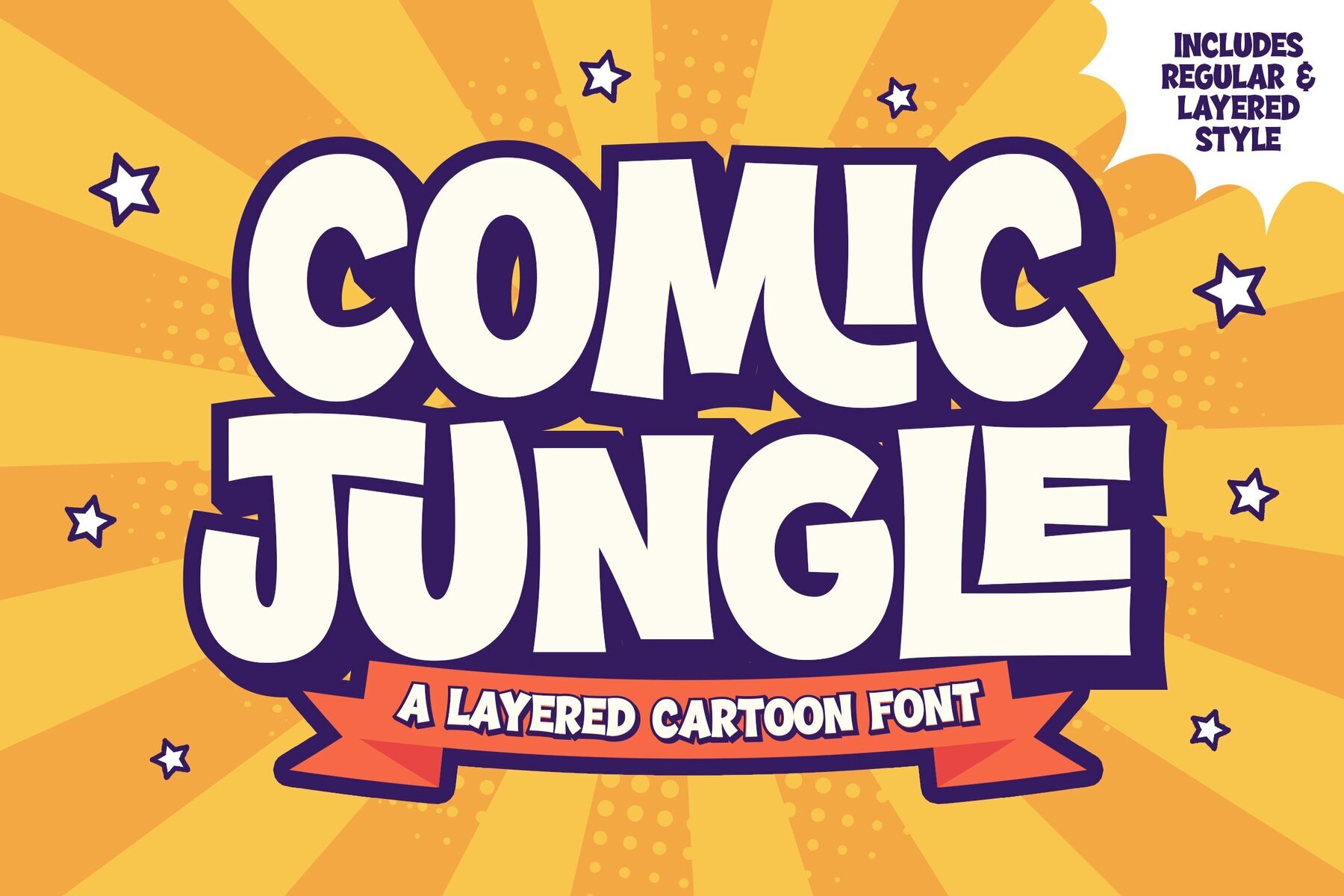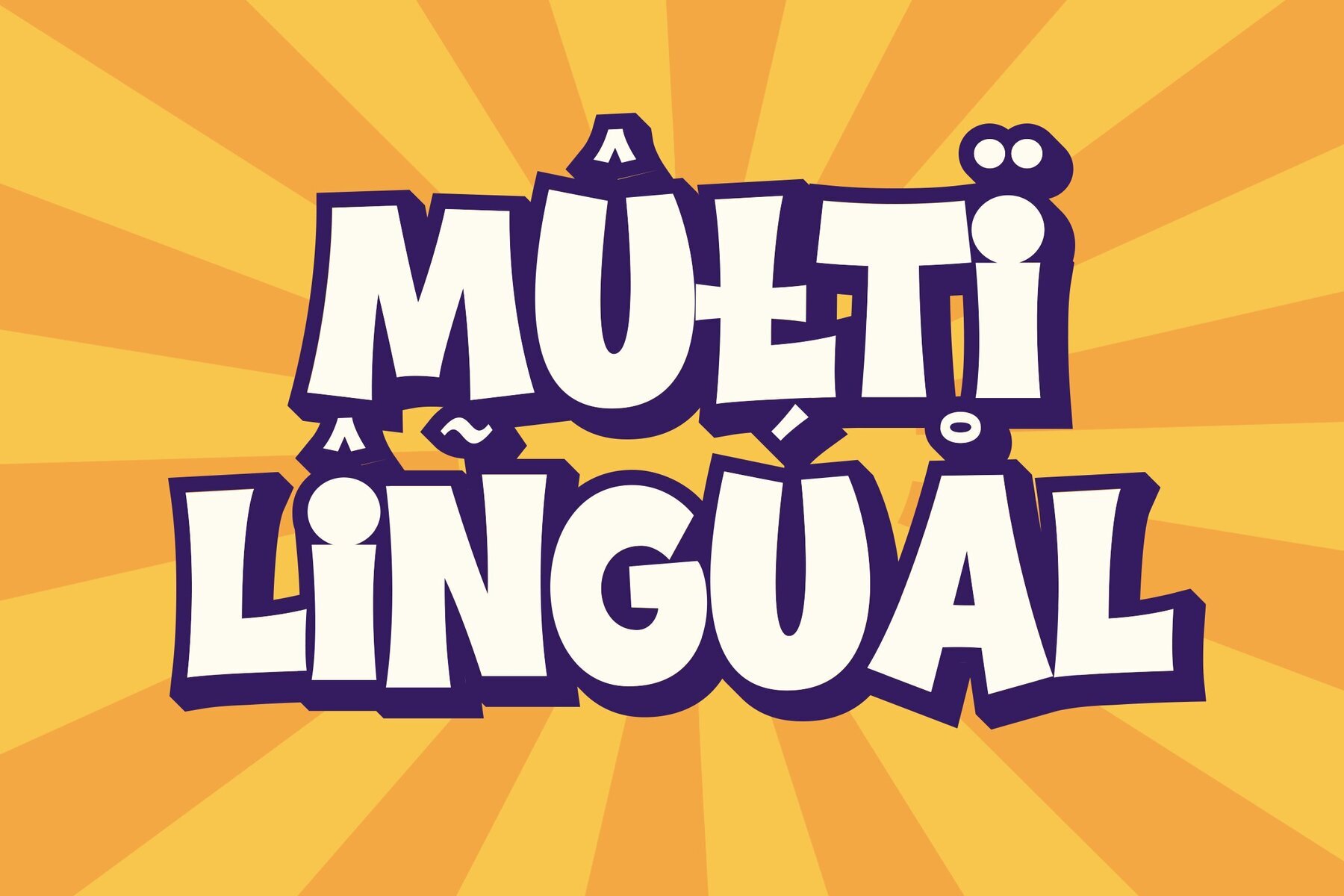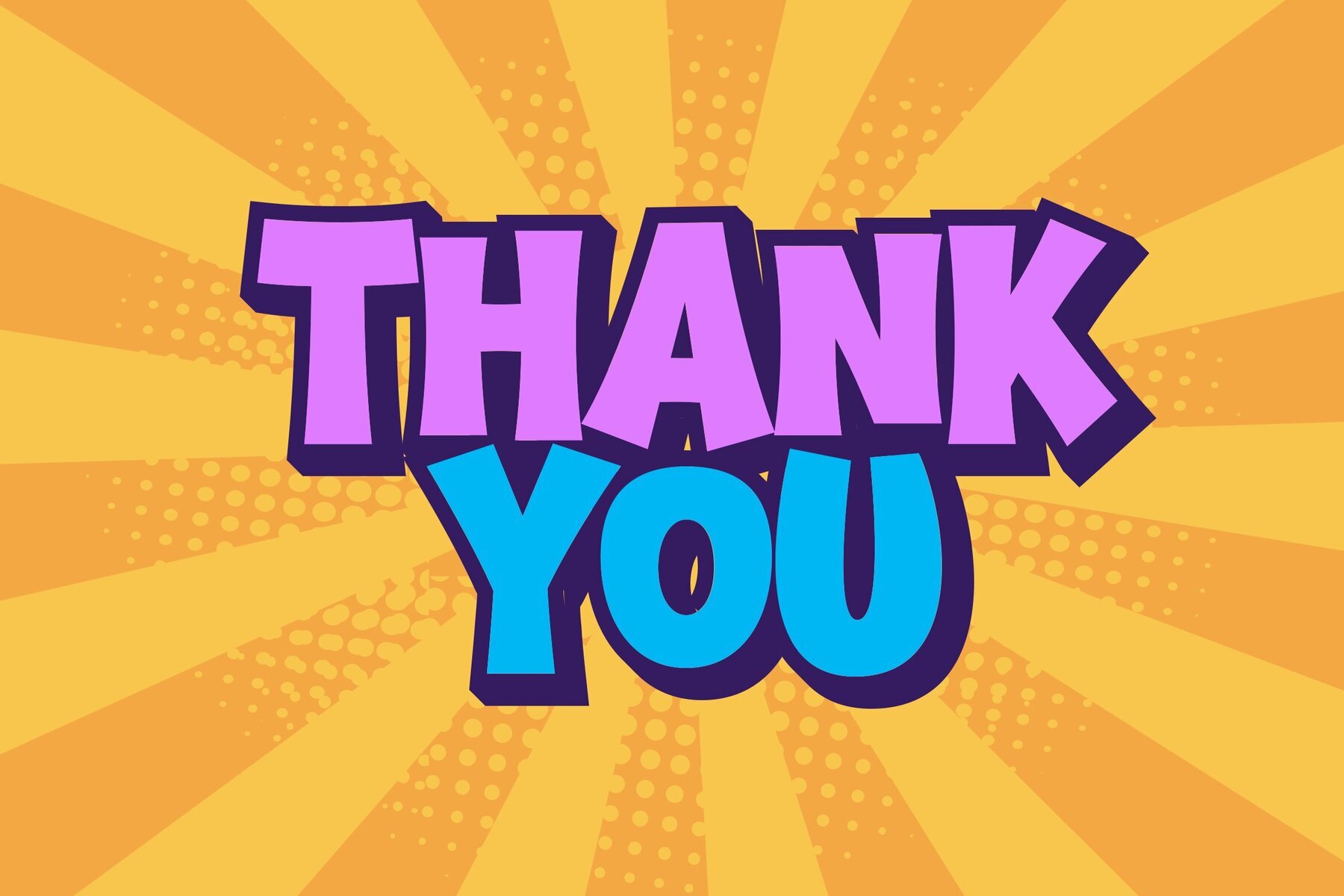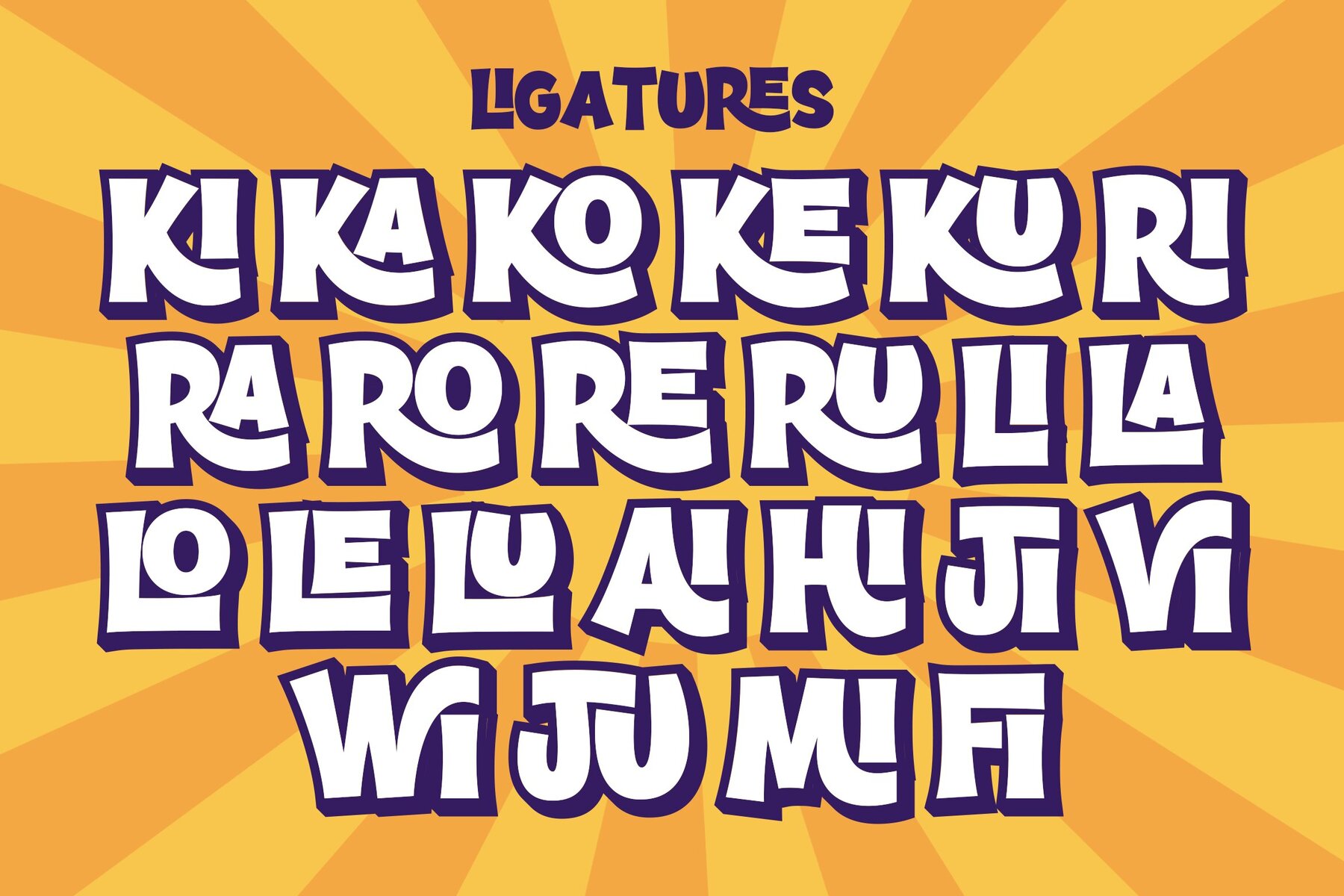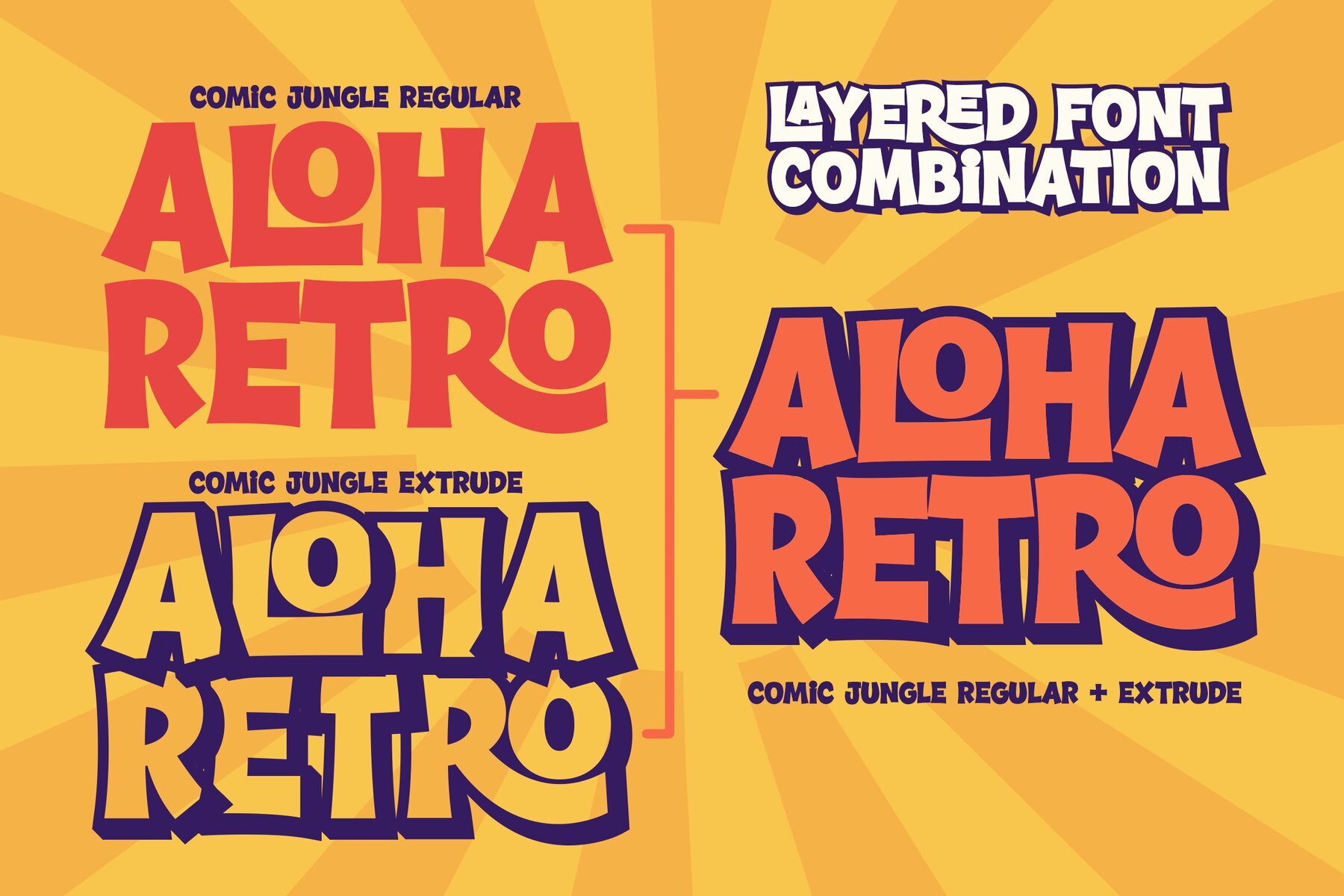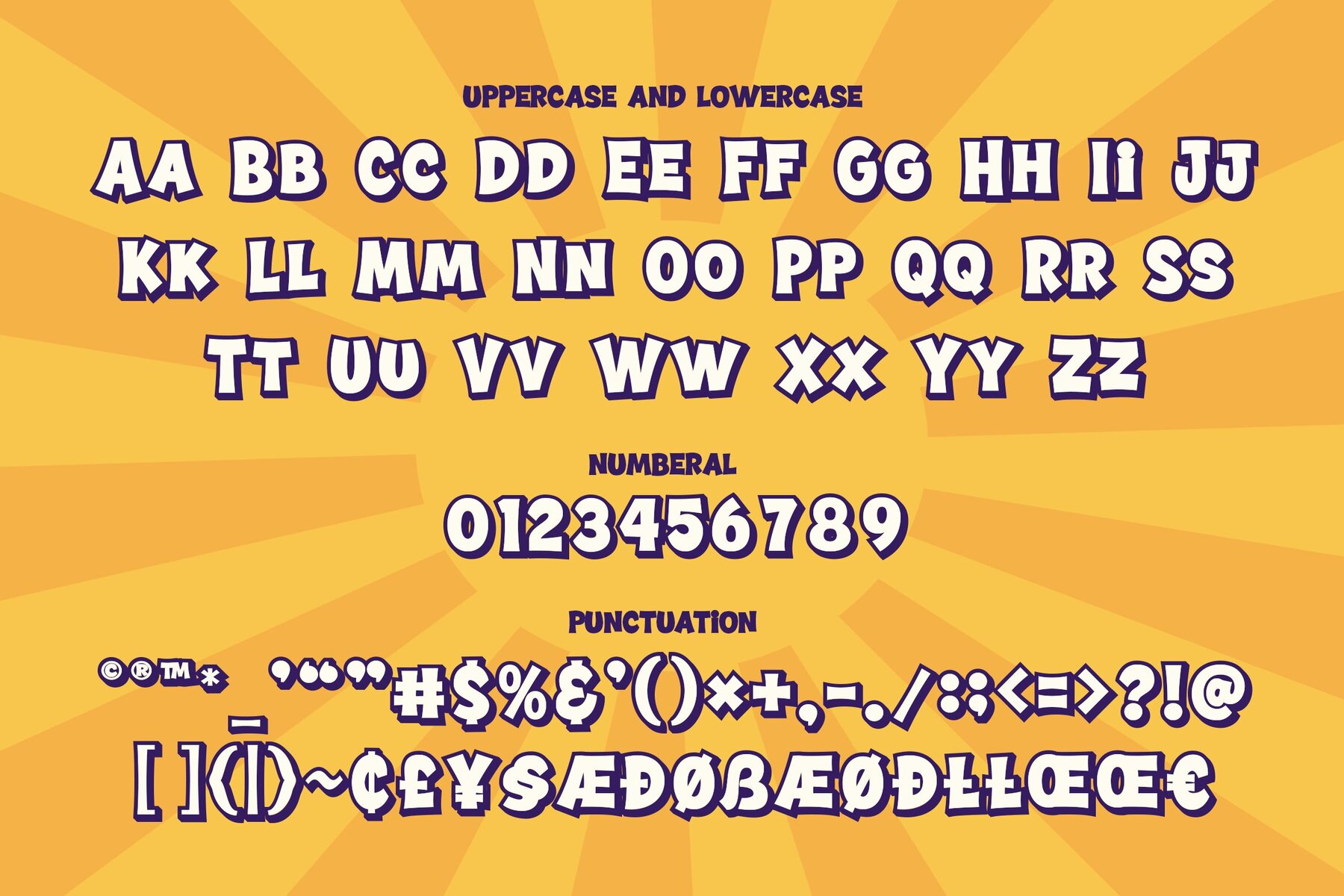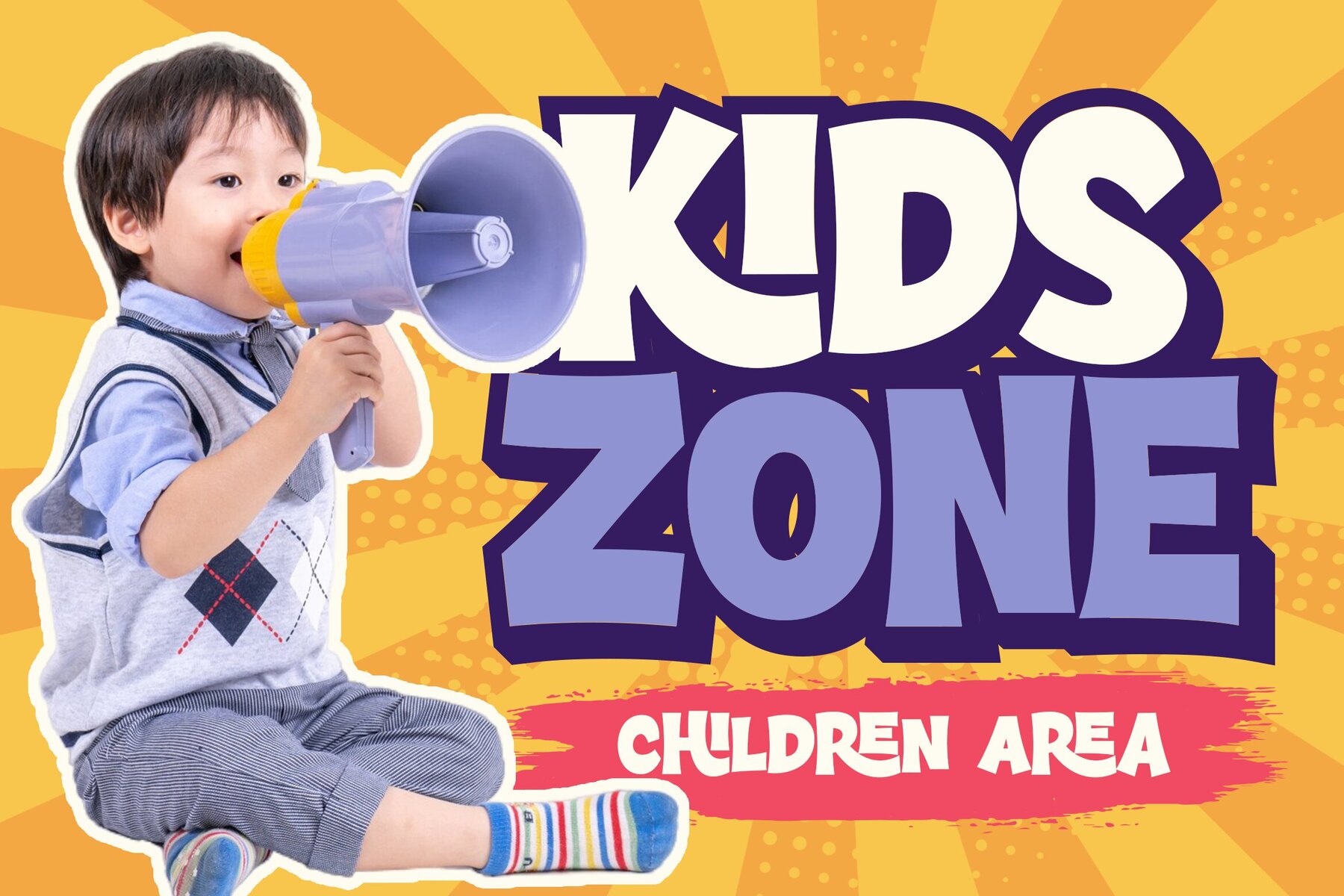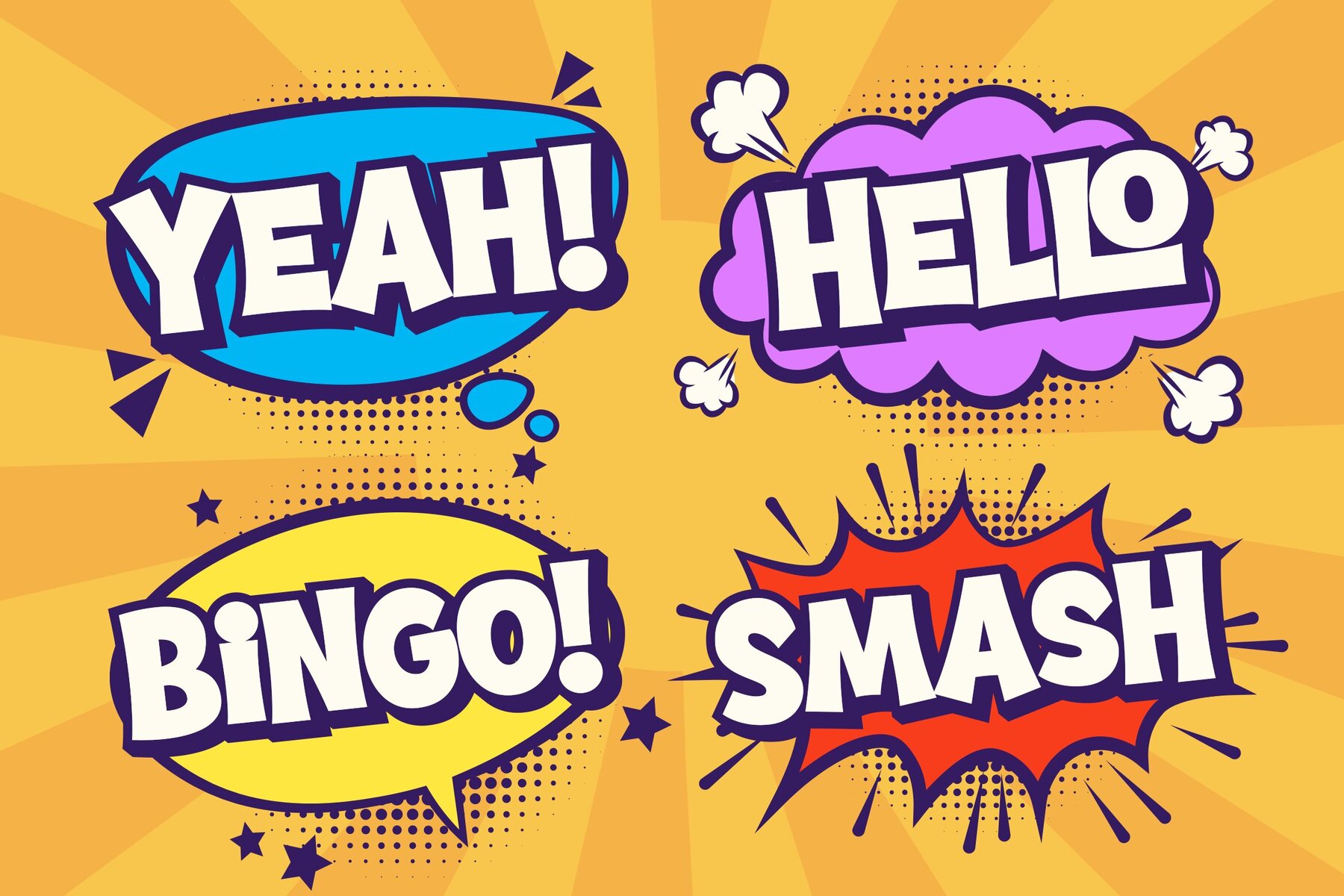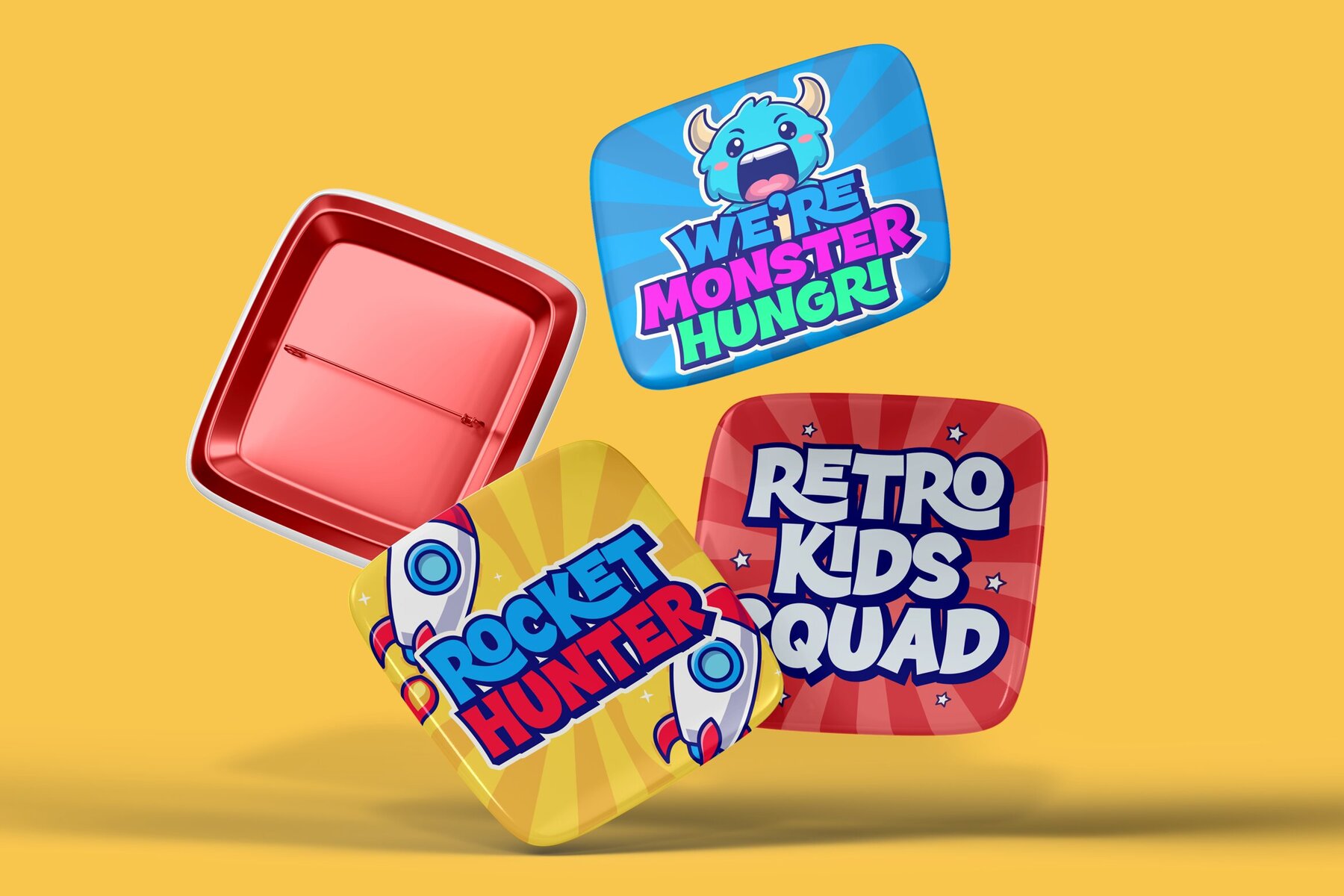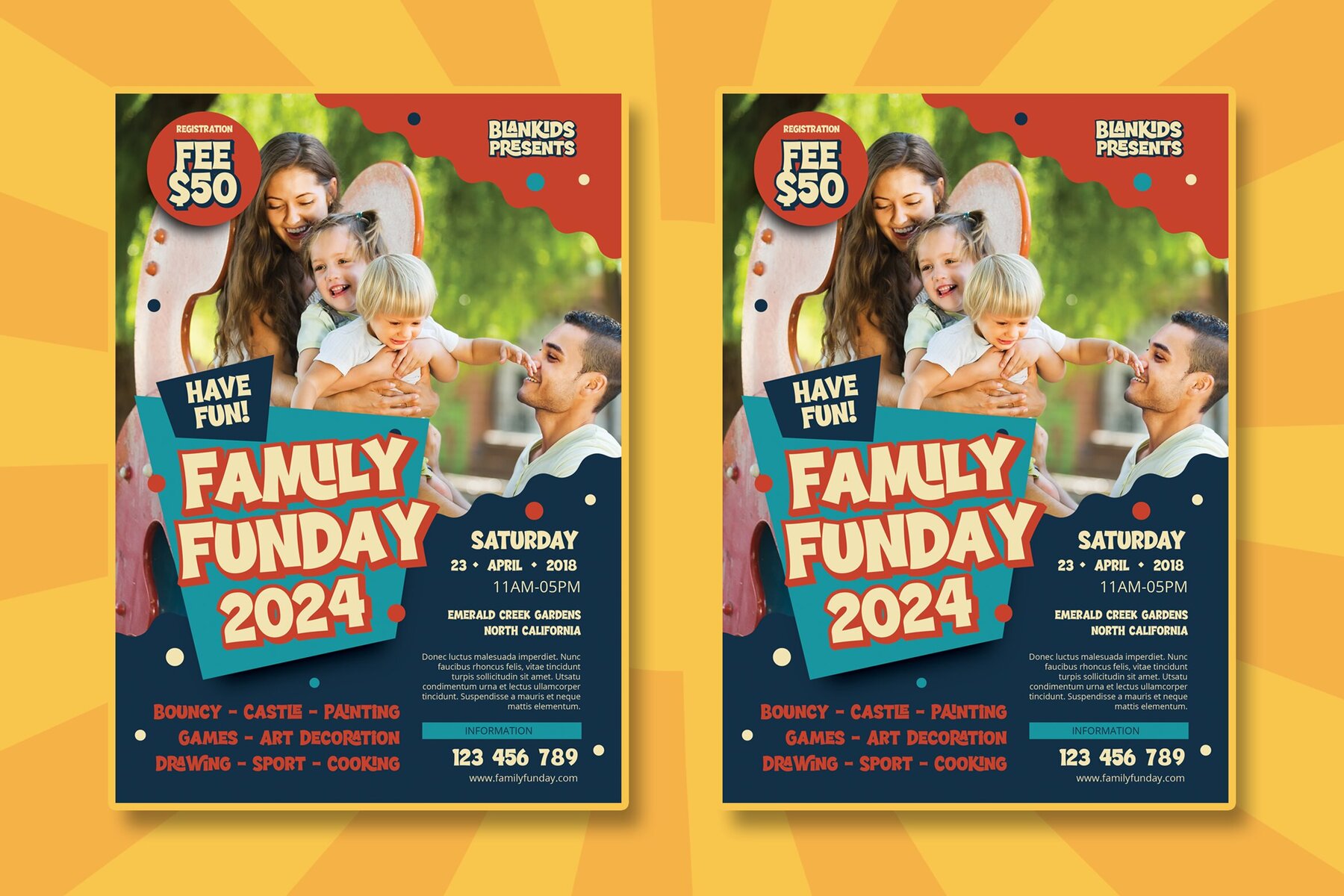
Comic Jungle Font
Comic Jungle Regular
Comic Jungle Extrude
Introducing Comic Jungle, a whimsical font crafted by Blankids Studio, ideal for infusing playfulness into your designs. This cartoon-inspired typeface suits a variety of professional branding applications, including logotypes, posters, and product packaging. Comic Jungle offers a diverse array of lettering, featuring both regular and extrude styles. The font provides a complete set of sporty uppercase and lowercase characters, alongside numerals and punctuation. Each letter reflects a vibrant comic-inspired charm, allowing you to bring lively character to any project.Comic Jungle: A Playful Font for Creative Projects